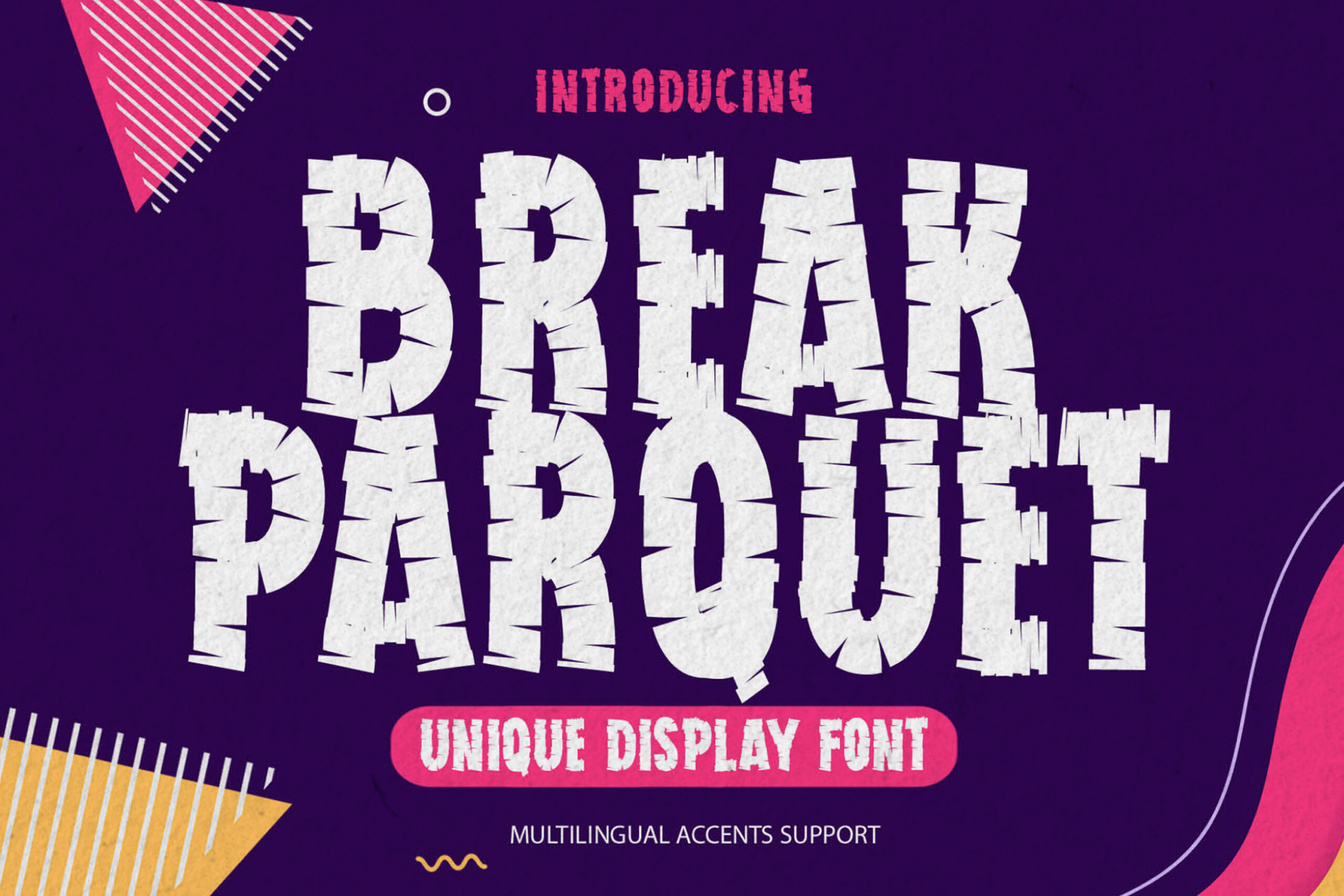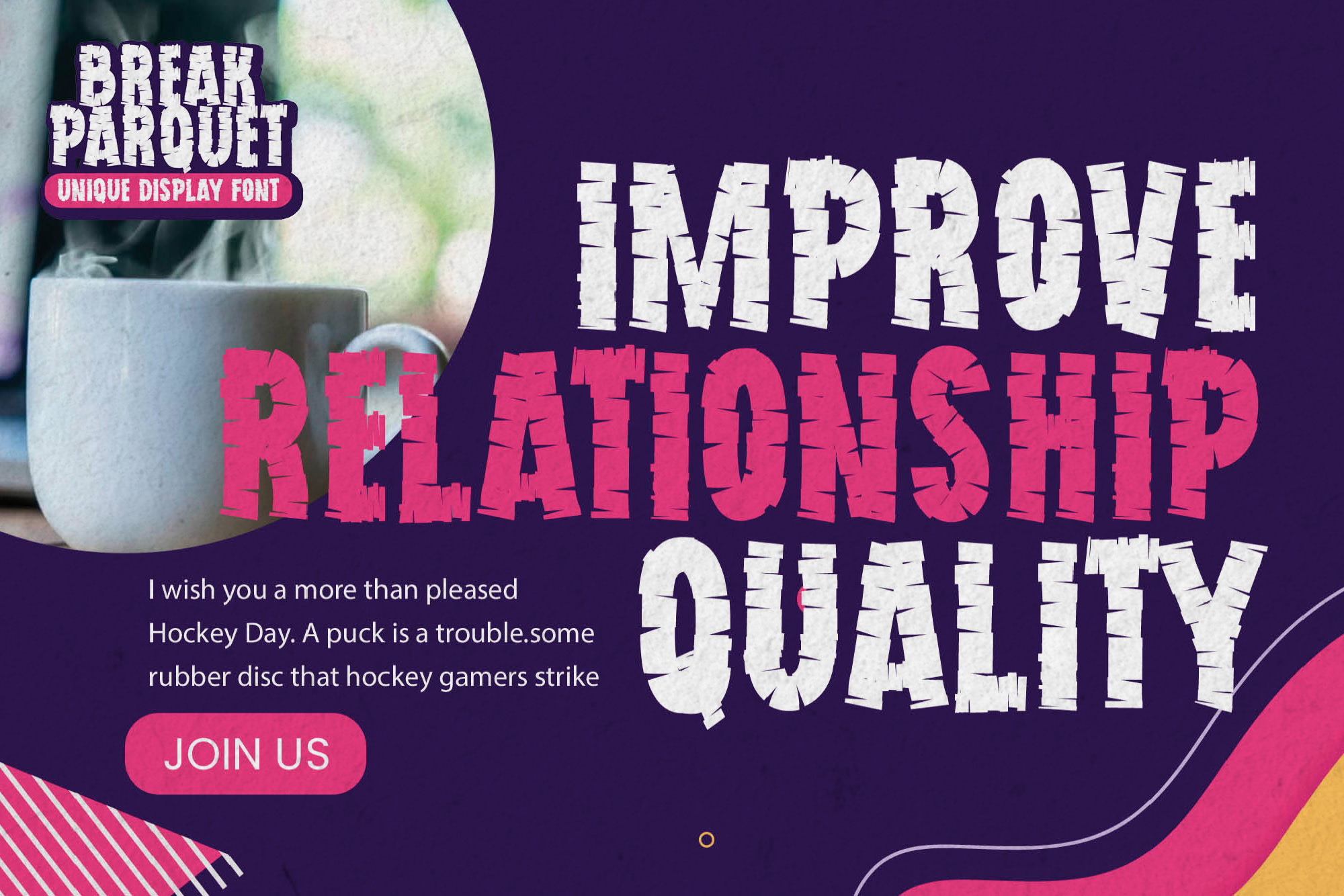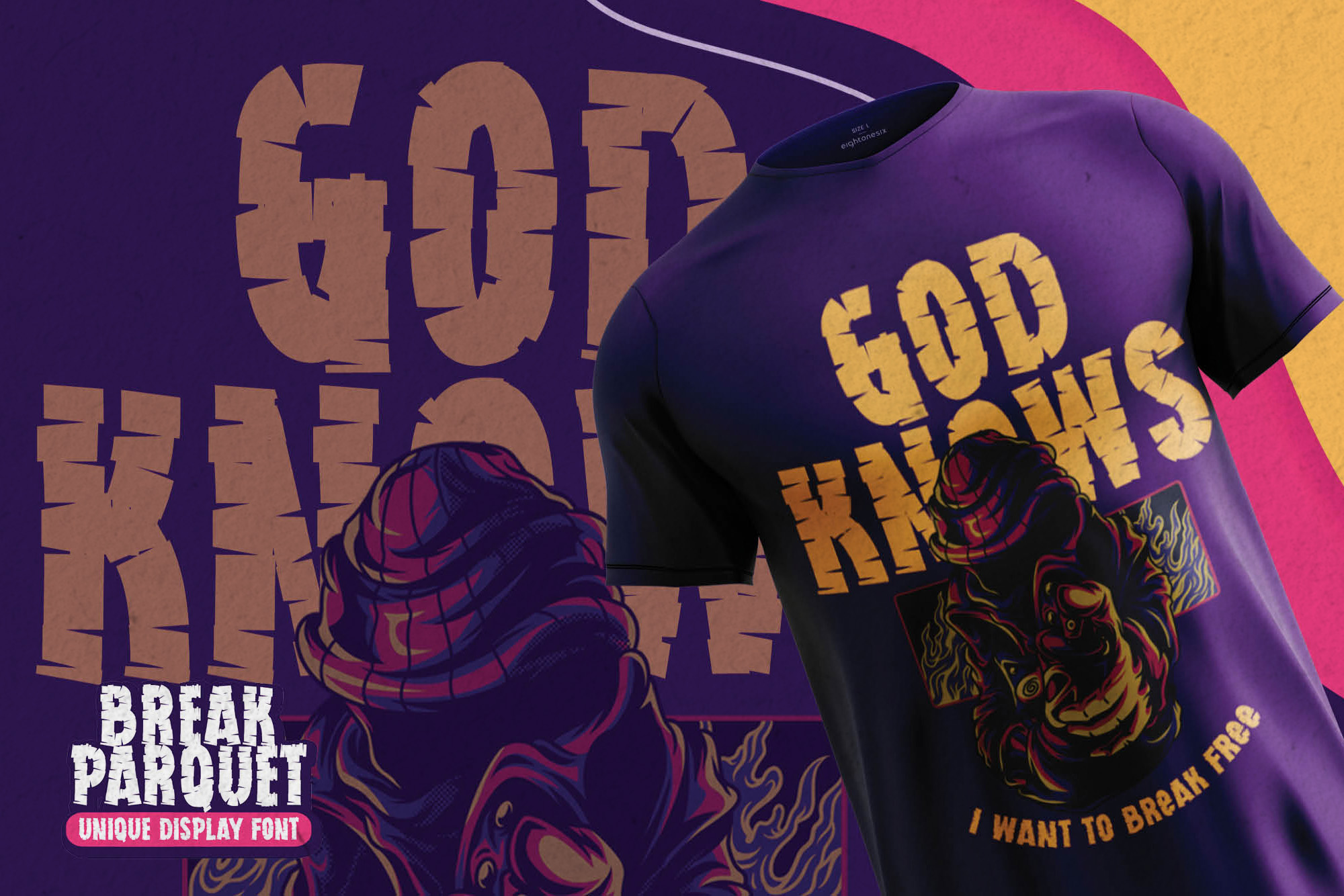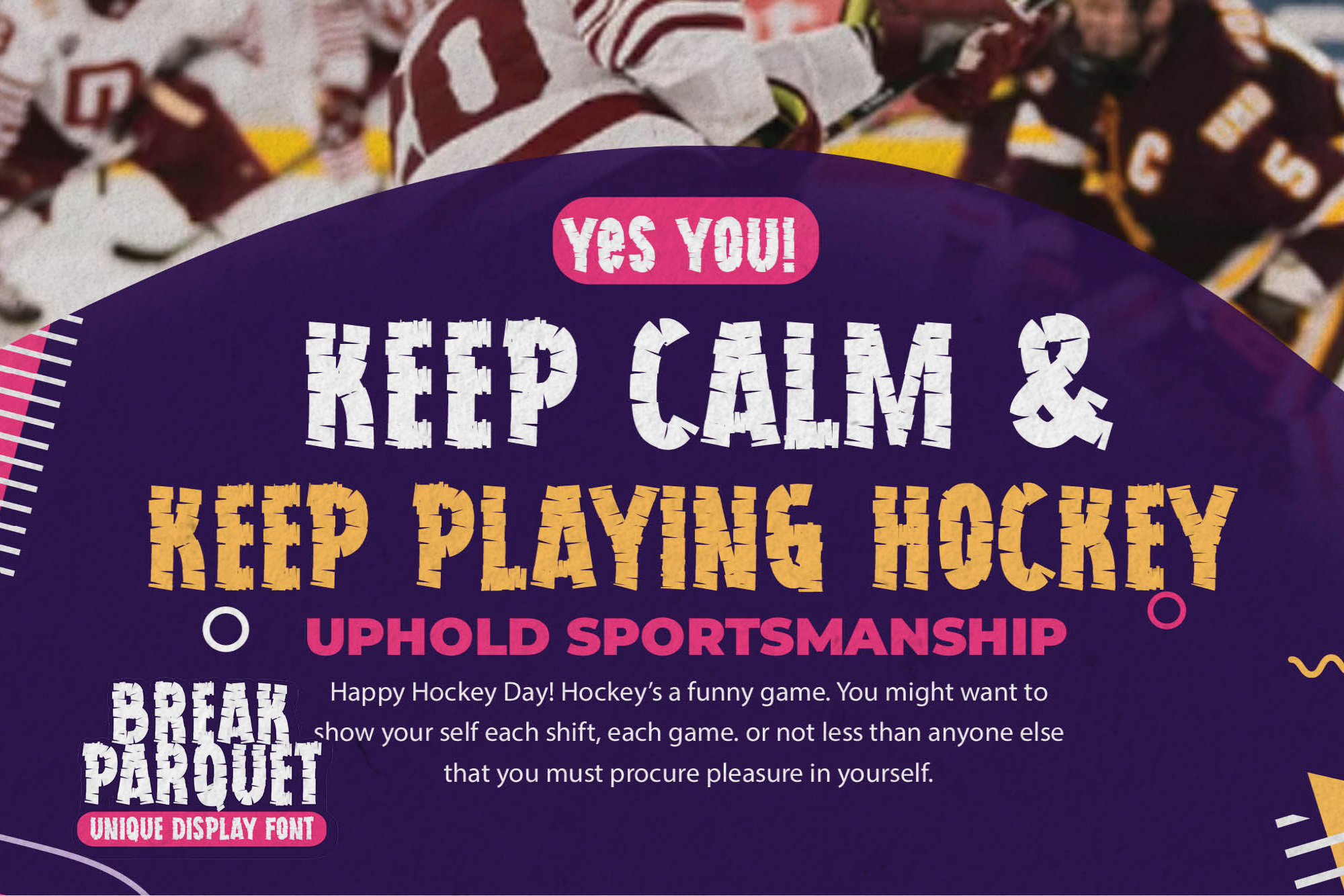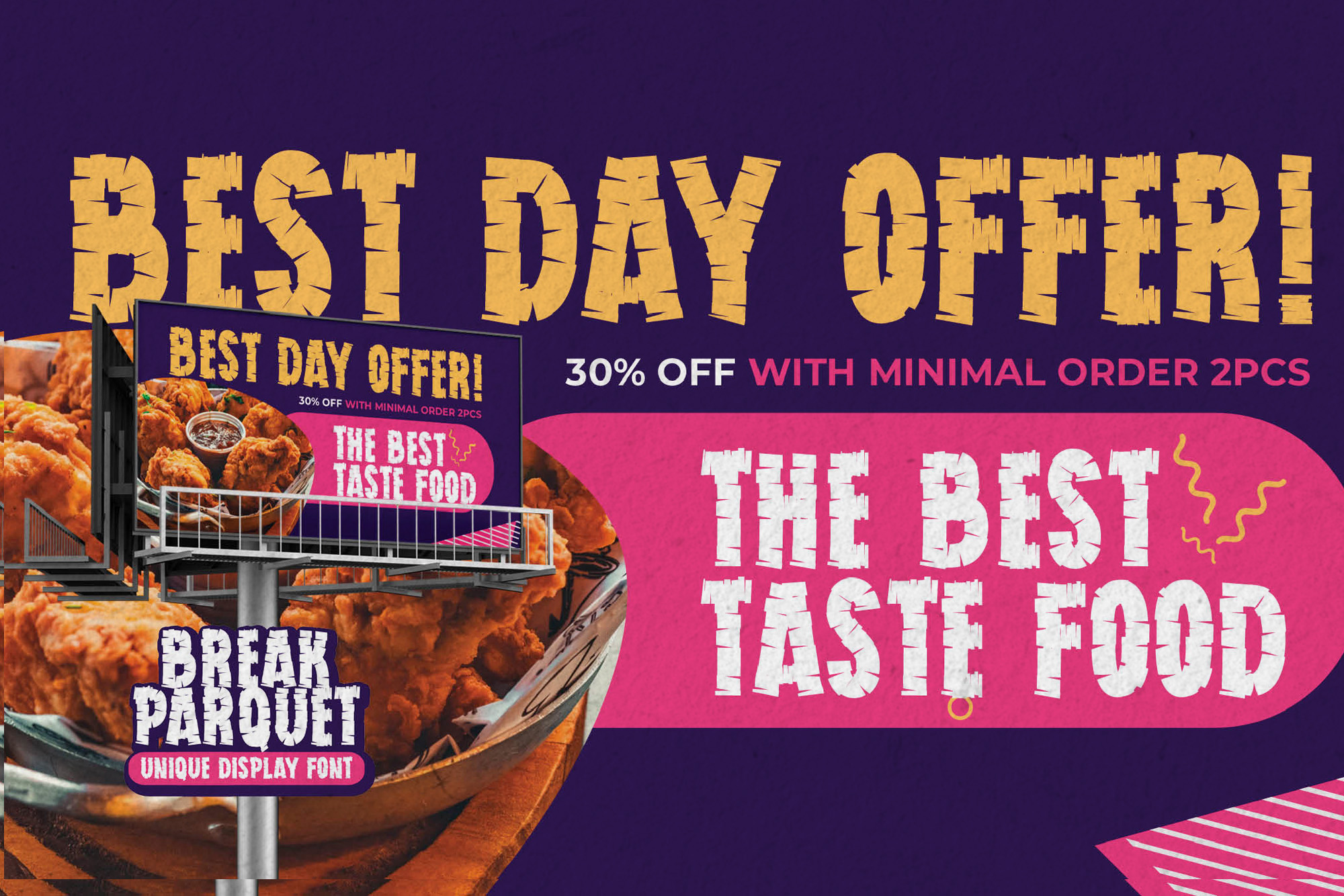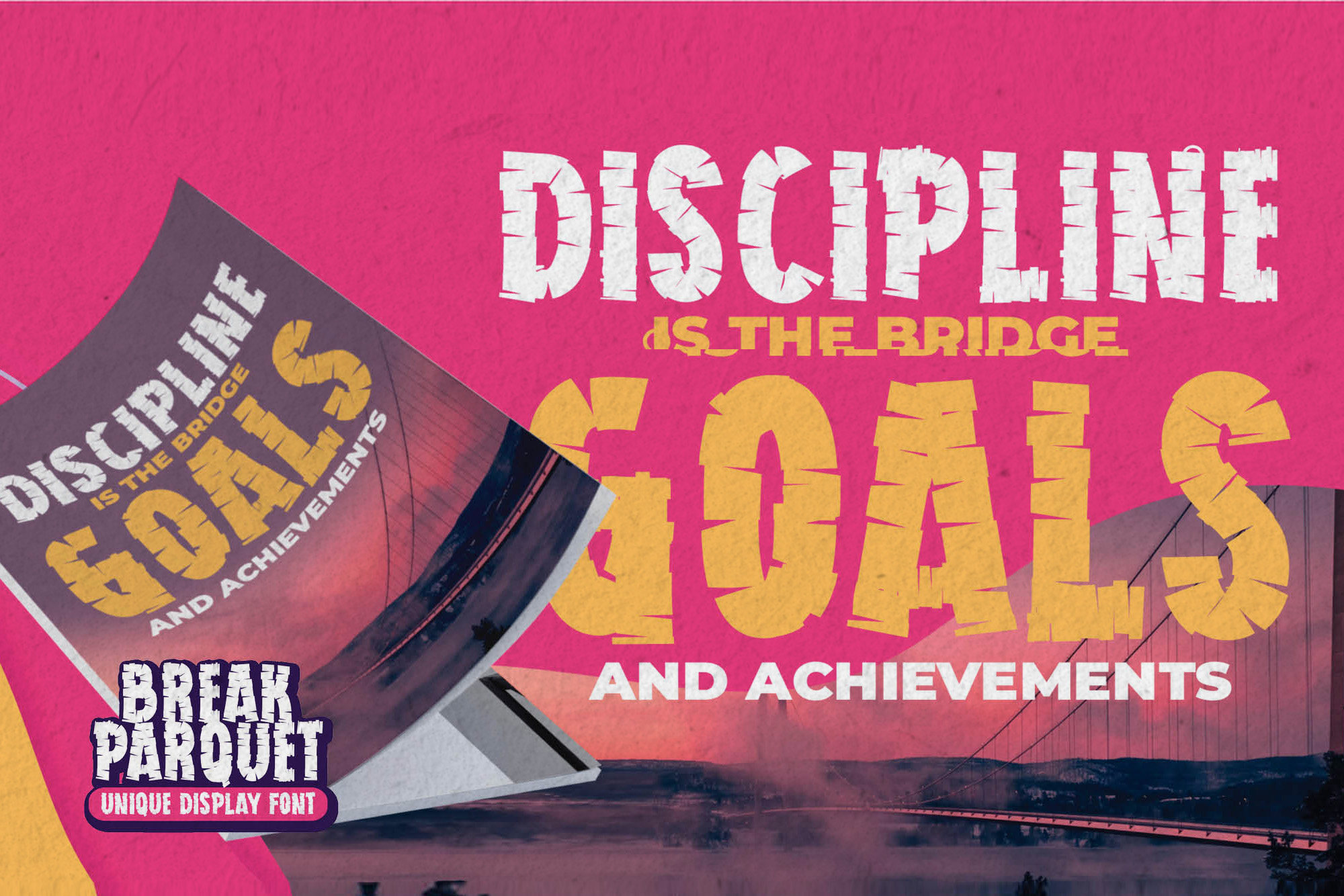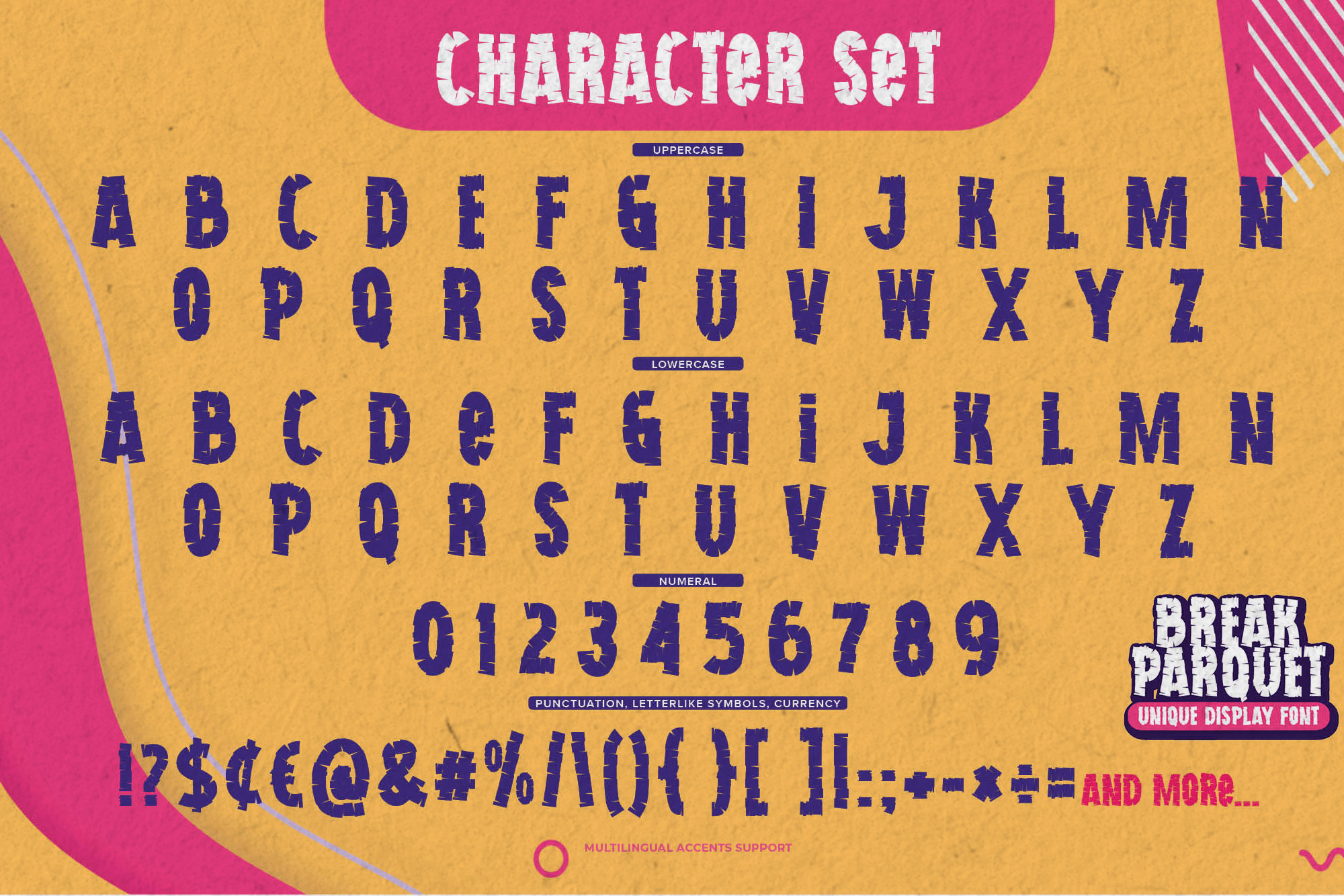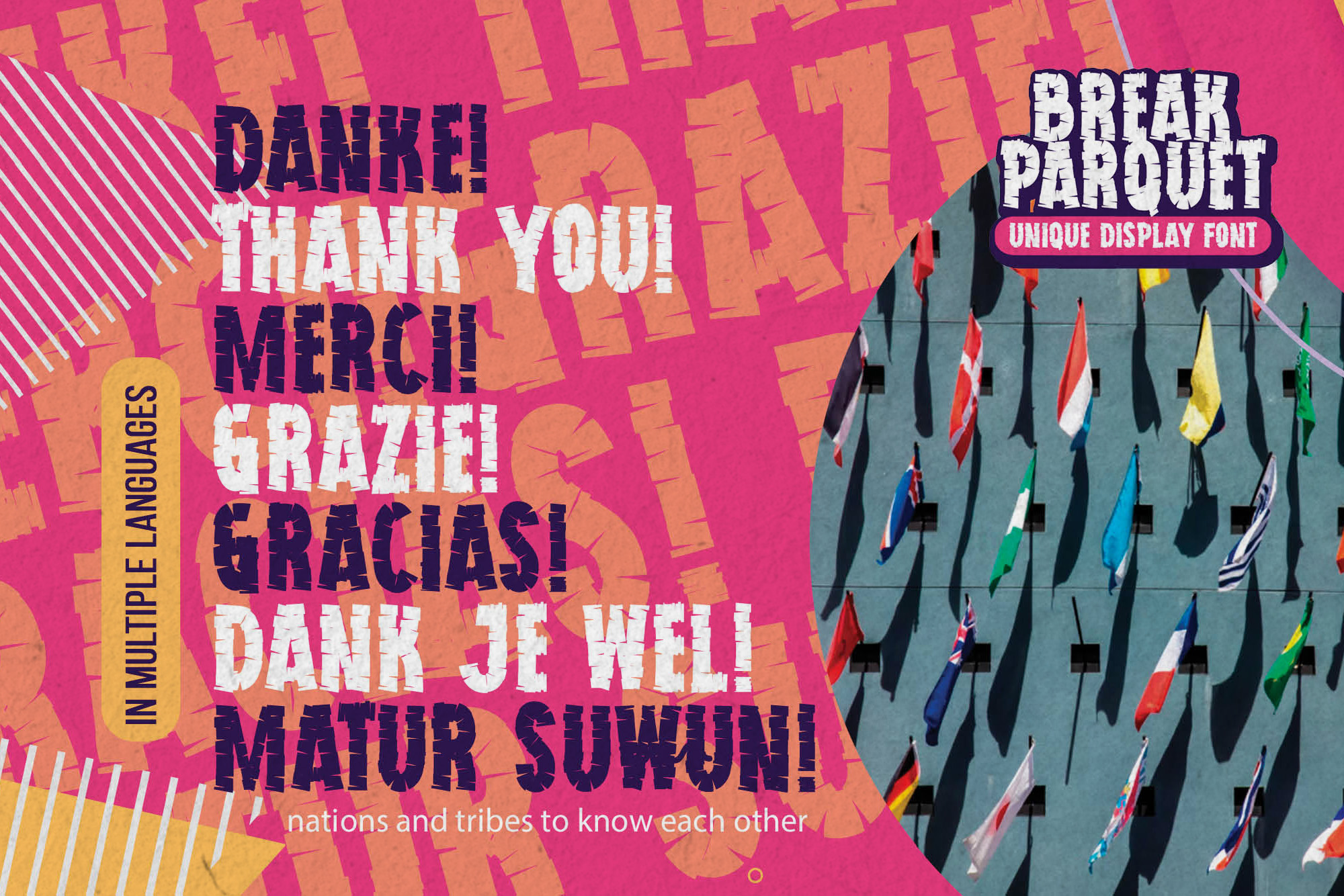
Break Parquet – Unique Display Font, modern style and authentic movement that is written casually and quickly.
The best for labels,poster,project , designs look modern, authentic and unique. It’s perfect for labels, quotes, posters, DIY projects, branding, packaging, greeting cards, websites, photography overlays, signs, scrapbooking, tags and so much more! That is why Break Parquet has a textured, and unique characteristic more natural look.